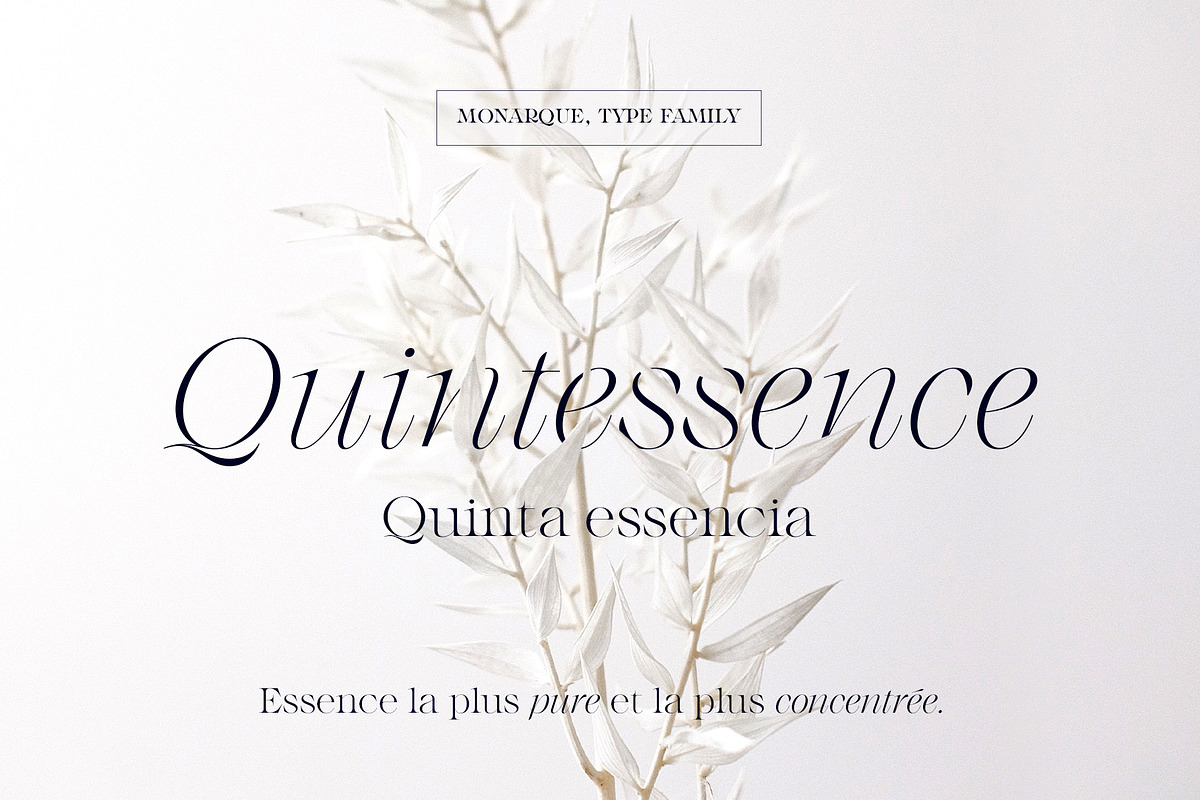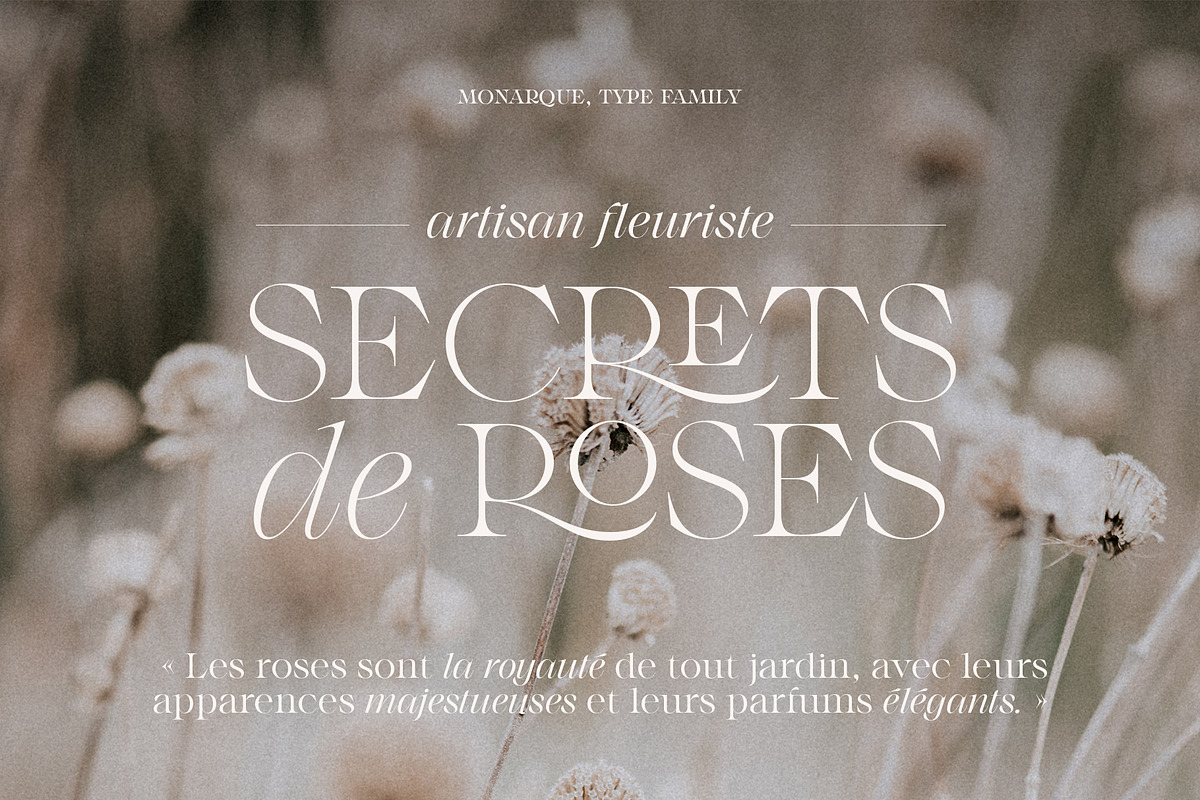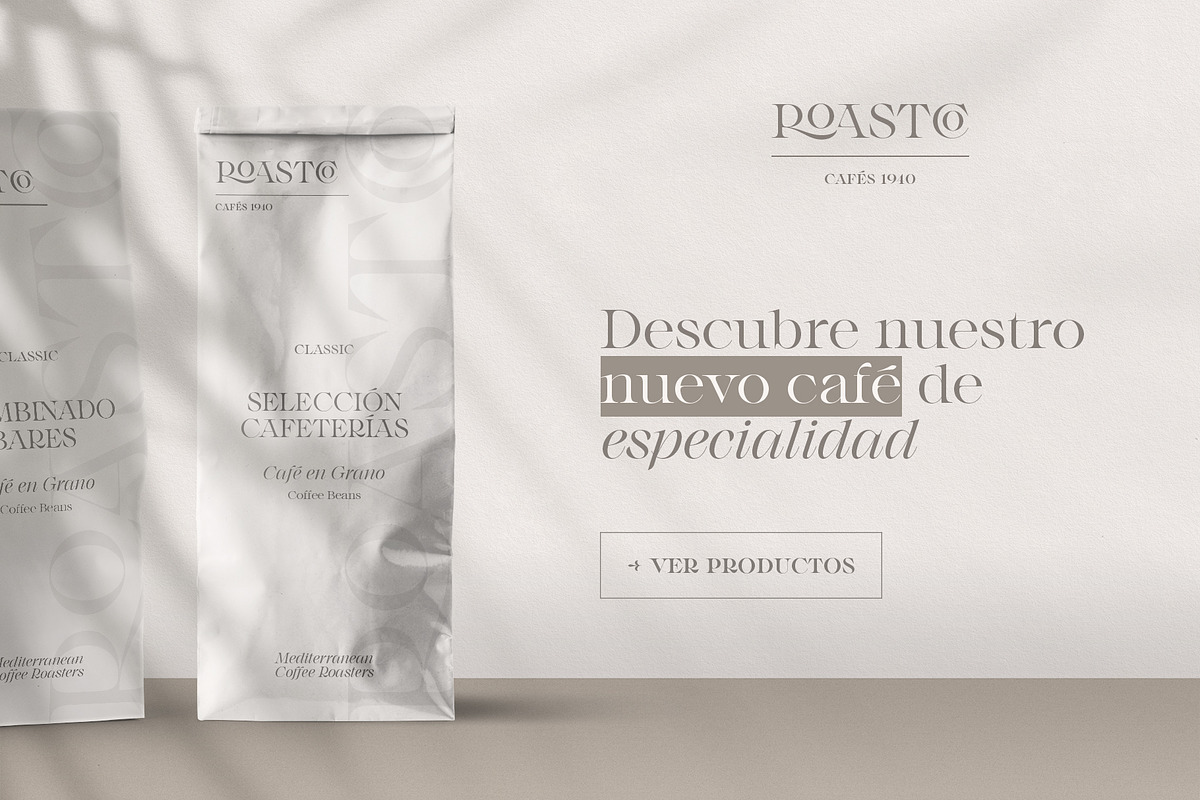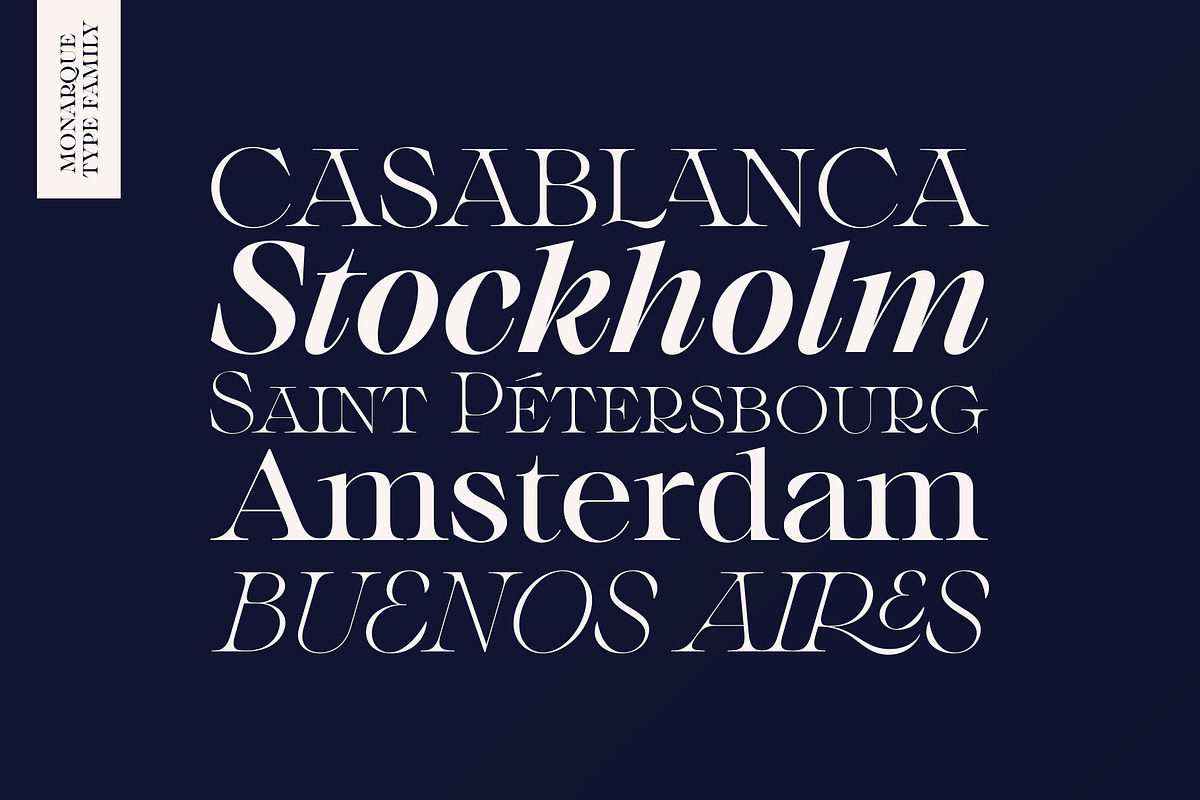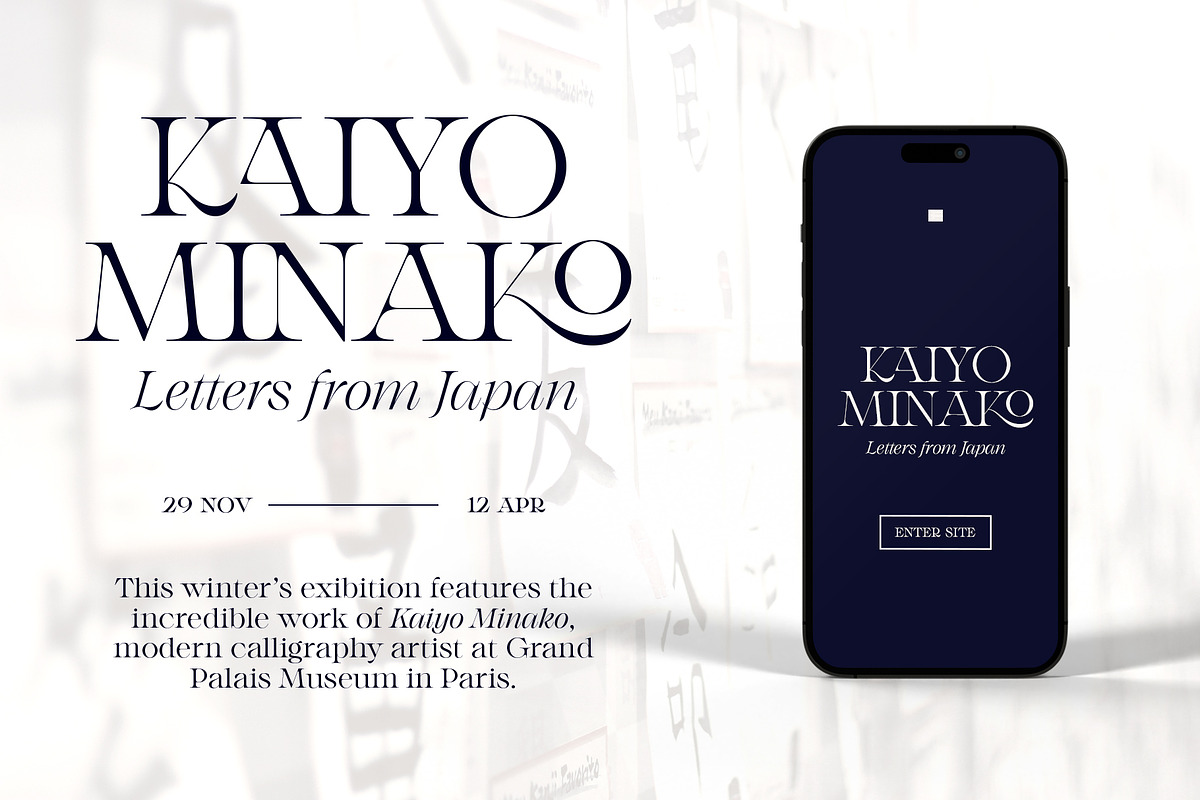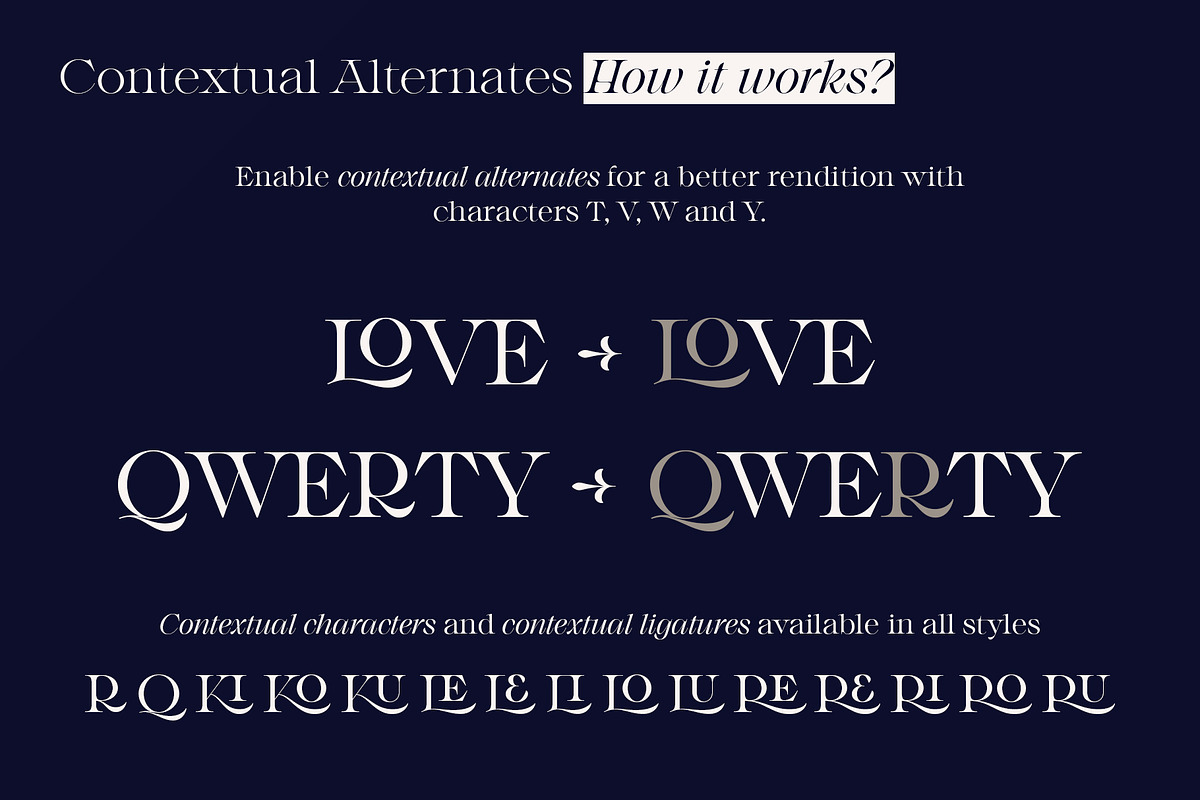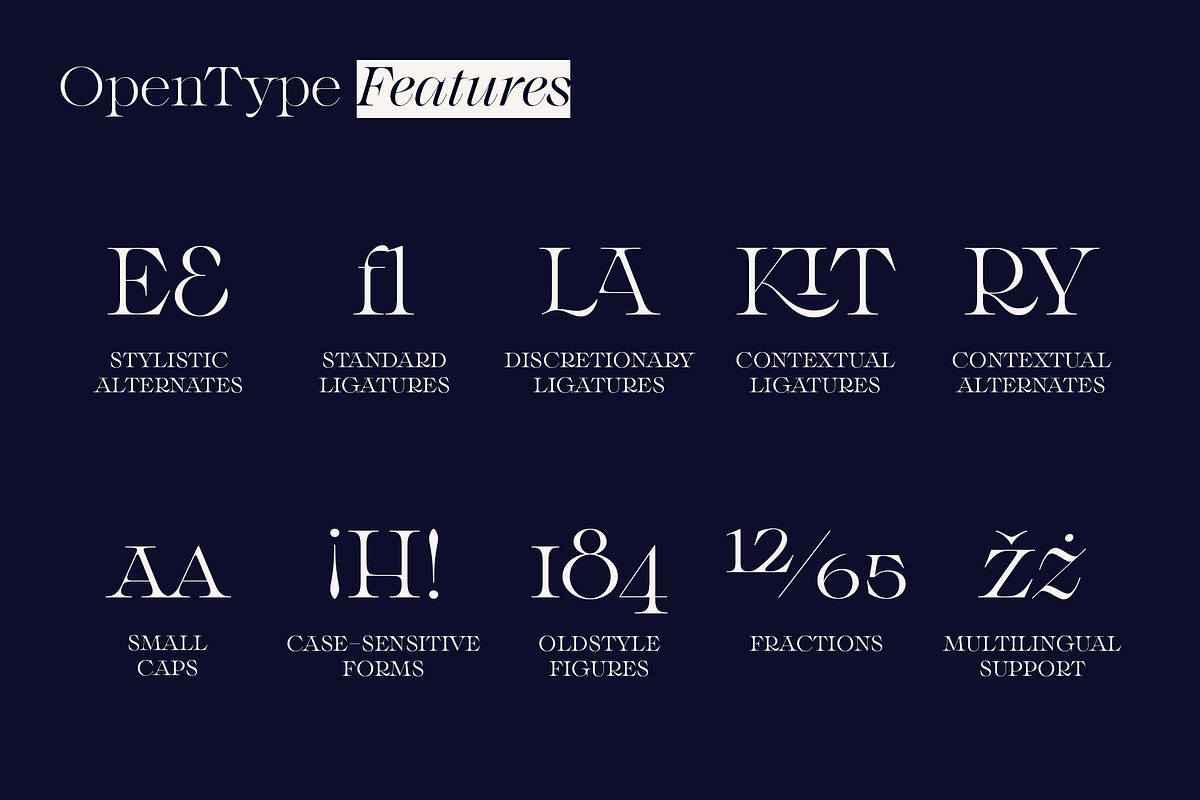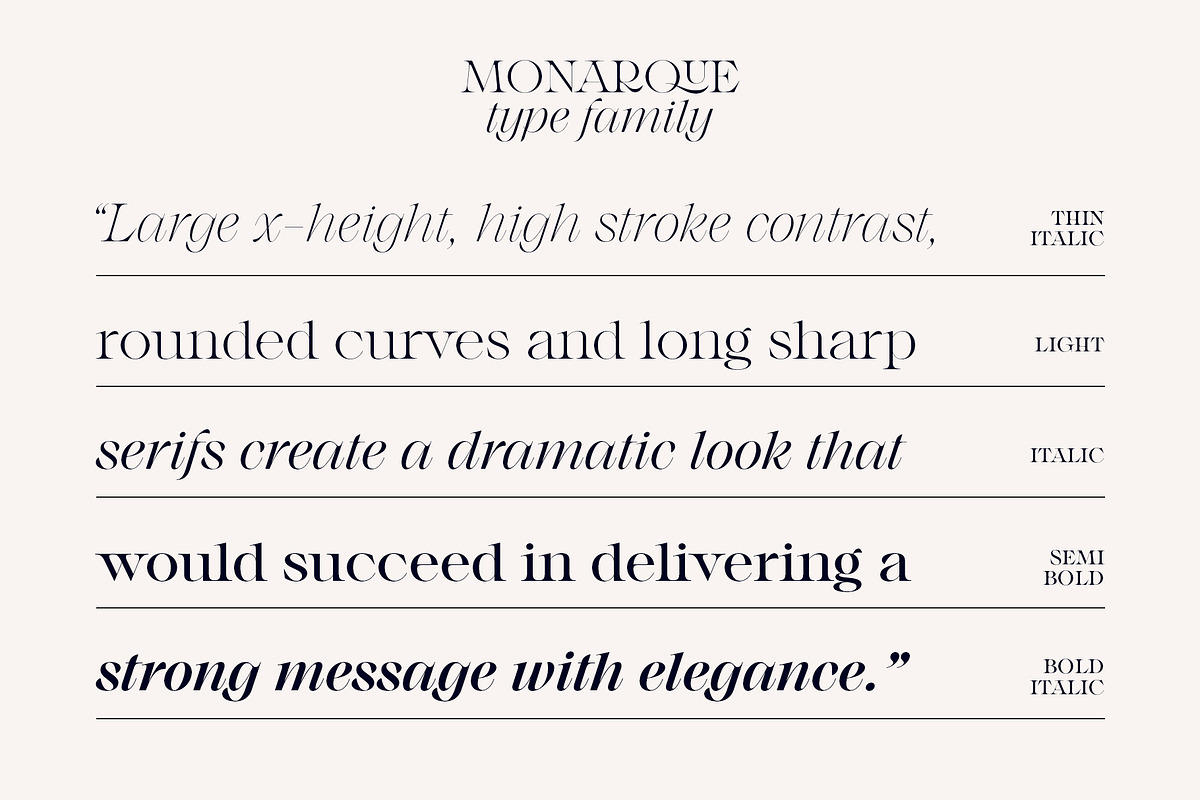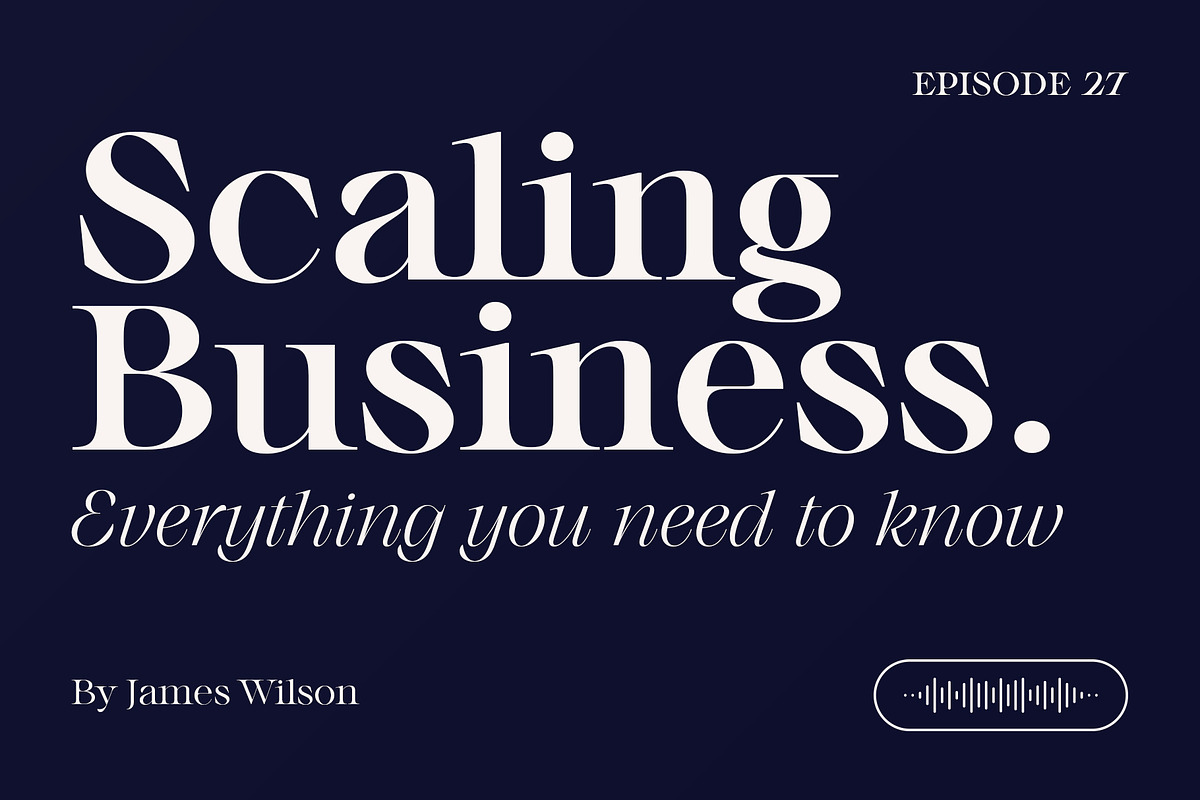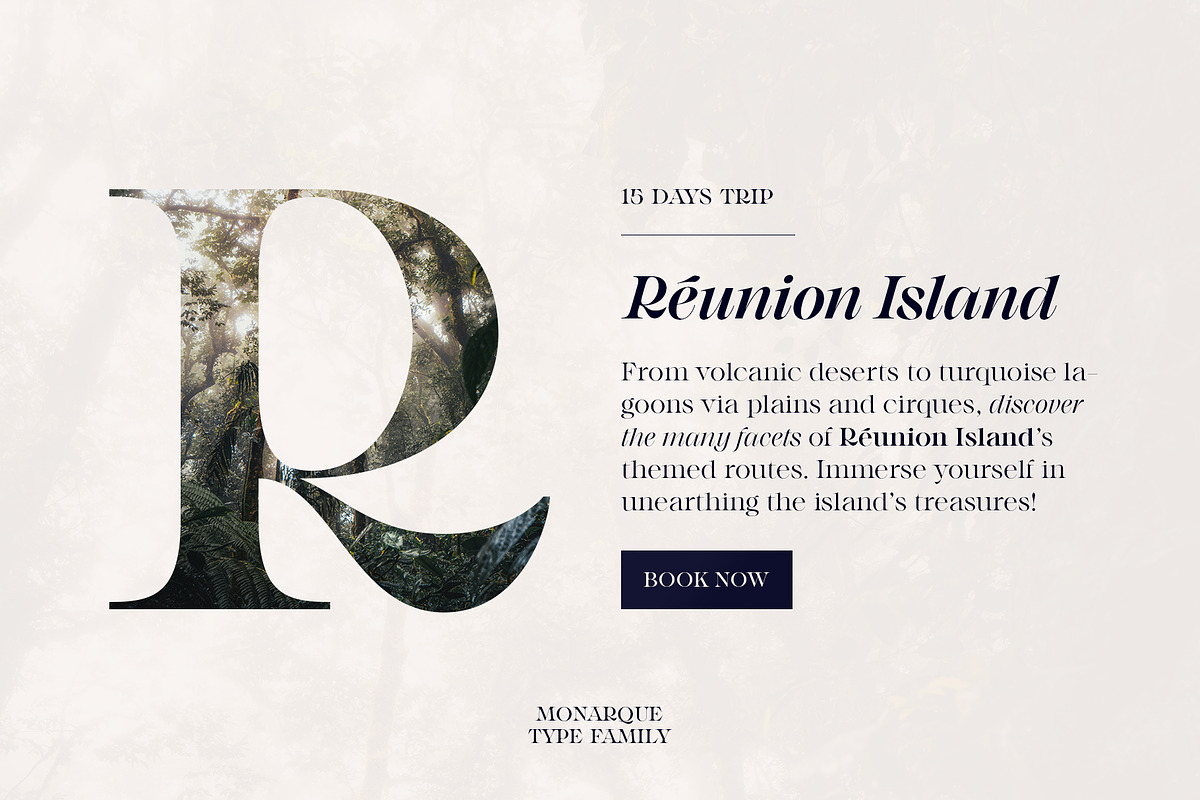
Monarque - Classy Serif Type Family
Monarque is a stunning classy serif typeface. It is made for sophisticated brands looking to leave a lasting impression on their audience.
Large x-height, high stroke contrast, rounded curves and razor-sharp elongated serifs create together a dramatic look that would succeed in delivering a strong message with elegance.
With a graceful look, the type family strikes the perfect equilibrium between tradition and modernity, making it an ideal choice for projects that demand a touch of class and refinement.
Originally created to be an all-caps only, the font includes a lot of uppercase ligatures that are thought to flow in naturally and achieve a legible composition. The true italics are designed to work harmoniously with the roman for a striking contrast within a line.
From editorial to branding, Monarque is your creative companion to empower any of your design work with timeless charm. As a display font its full potential operates at its best with headlines or short to medium-length texts.
This exquisite typeface is available in 5 weights for a total of 10 fonts and supports over 200 Latin-based languages. OpenType features include a stylistic set of alternates, contextual alternates, discretionary and standard ligatures, old style figures, small caps and case-sensitive forms.